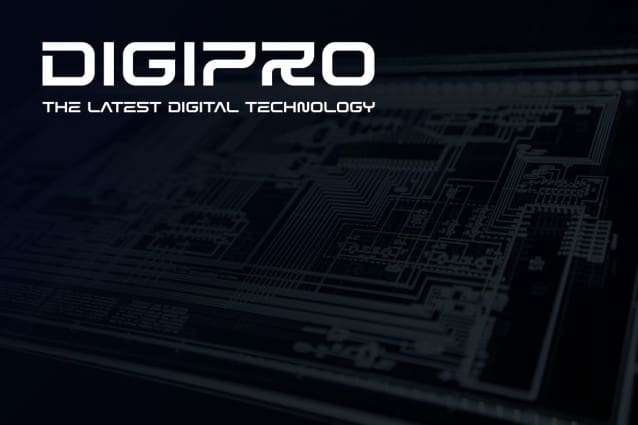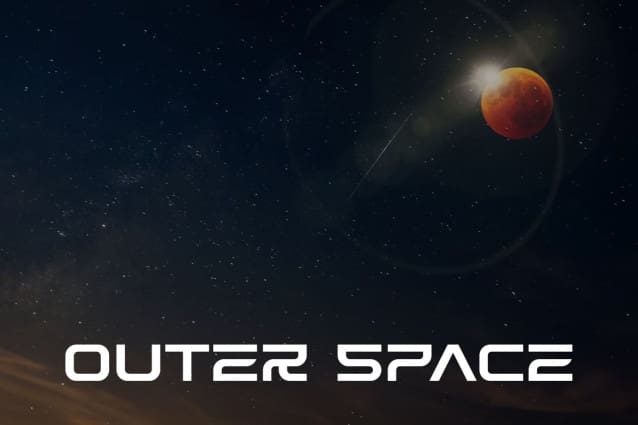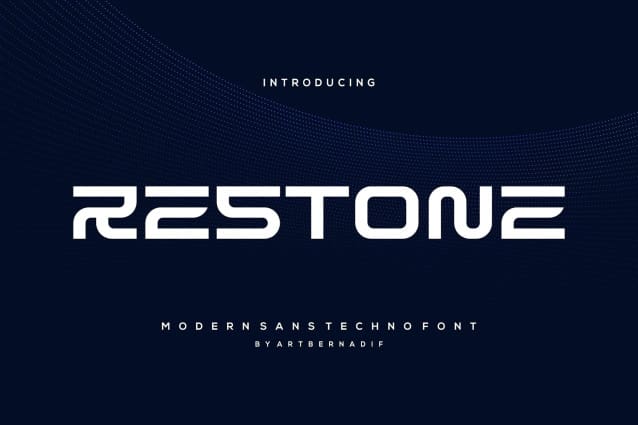
Restone Font
Restone Font – Modern Font is a bold and authentic display font. The font is suitable for all branding projects such as Logo, t-shirt printing, esports, etc. exceptional in a wide range of contexts.